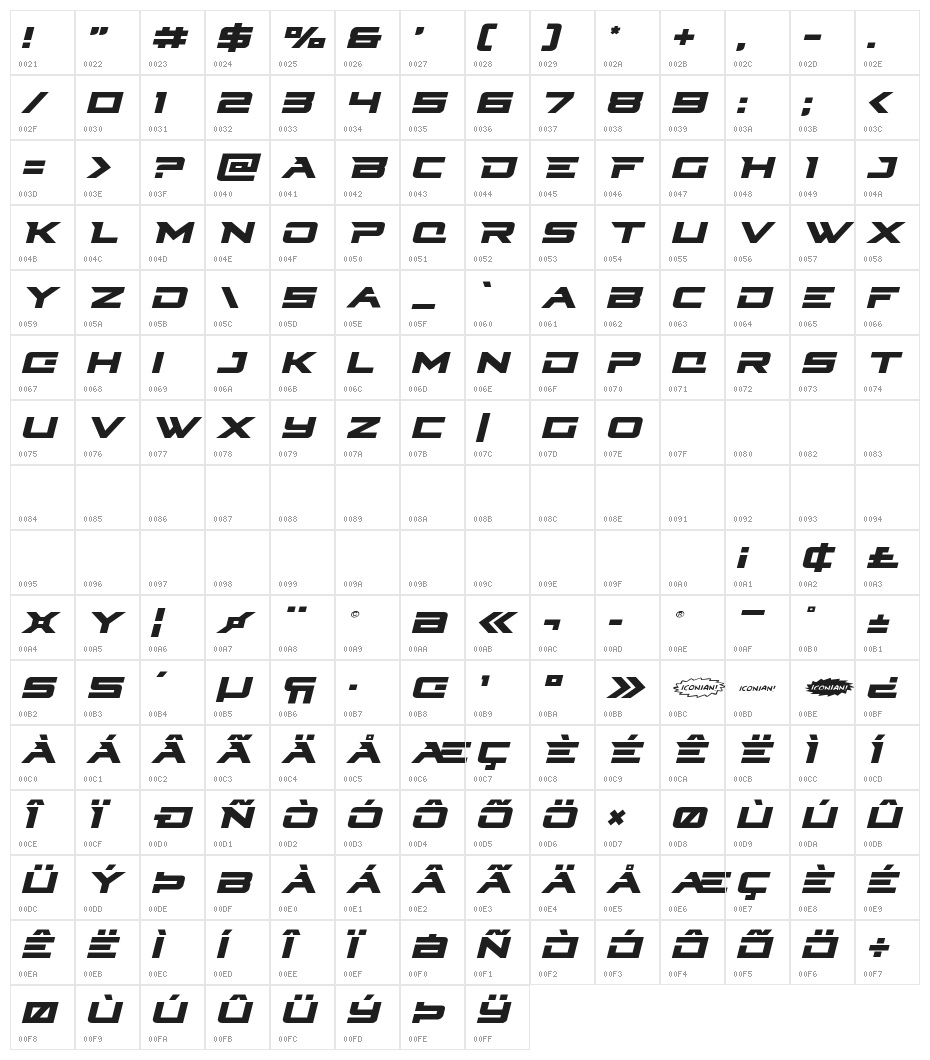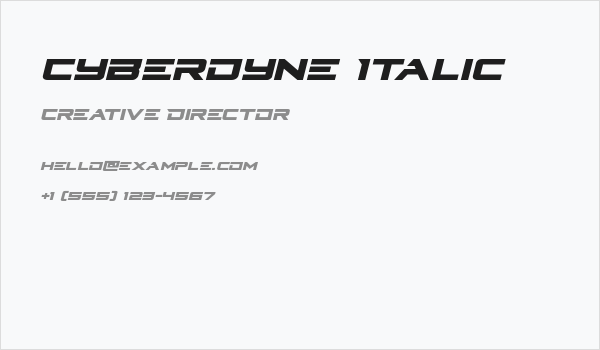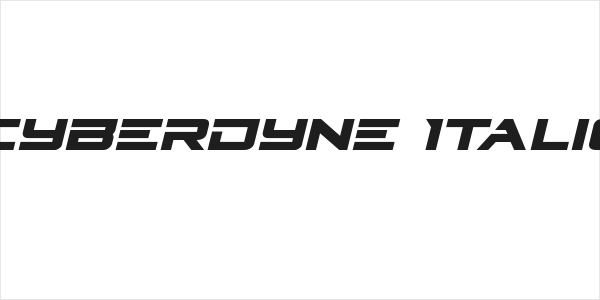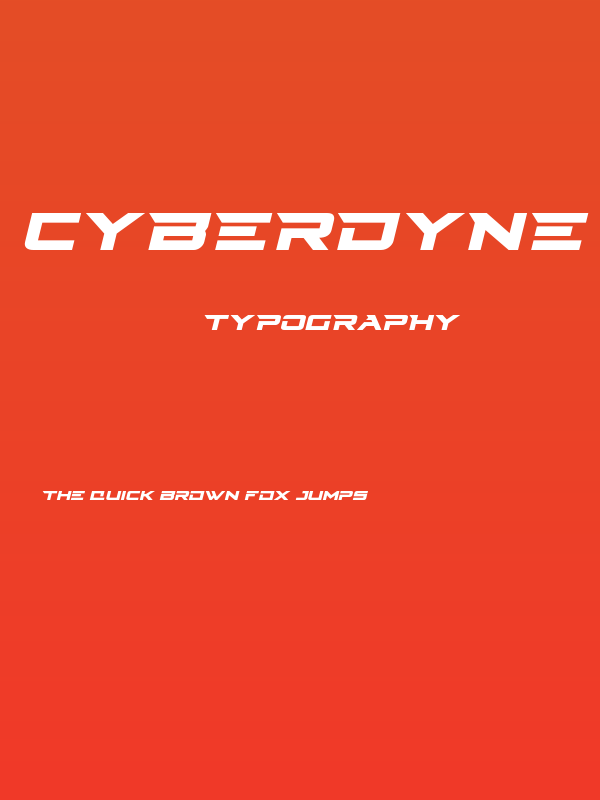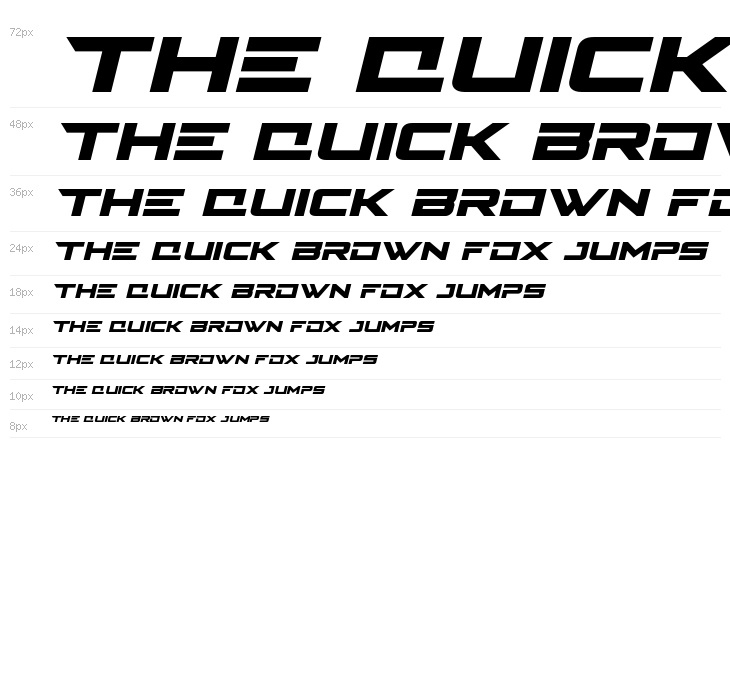
Cyberdyne Italic Font
Cyberdyne Italic Description
This font exhibits a futuristic and angular design, characterized by its sharp edges and italicized slant. The uppercase and lowercase letters maintain a consistent geometric style, with a strong emphasis on horizontal lines and diagonal cuts. Numbers and special characters follow the same aesthetic, providing a cohesive look across all glyphs. The font's bold appearance is enhanced by its thick strokes and dynamic angles, making it ideal for attention-grabbing designs. Its modern and sleek style is suitable for projects that require a high-tech or sci-fi theme.
| Proposed Projects | Ideal for sci-fi movie posters, tech company logos, video game titles, and futuristic-themed branding. |